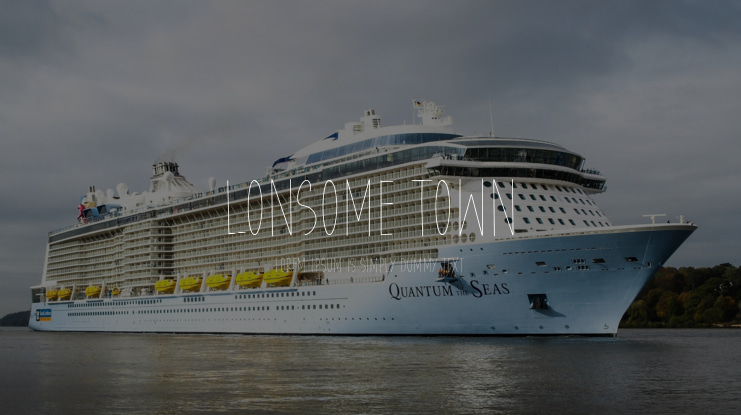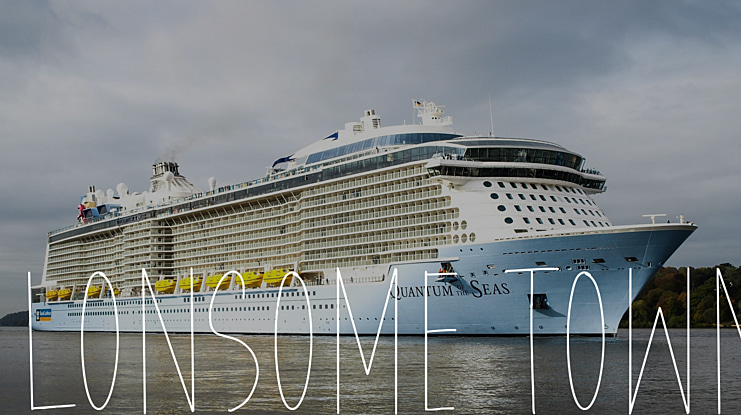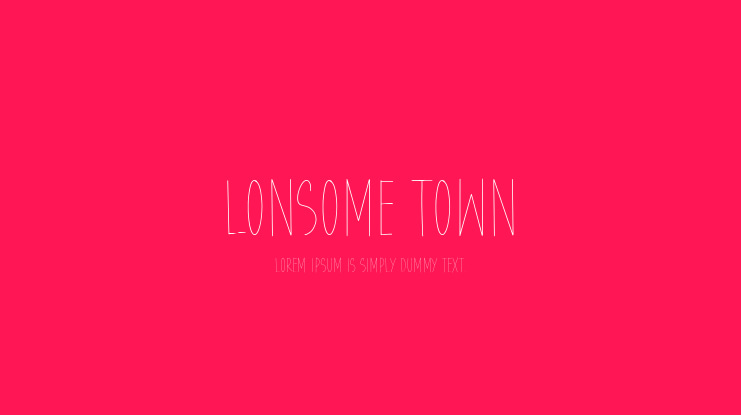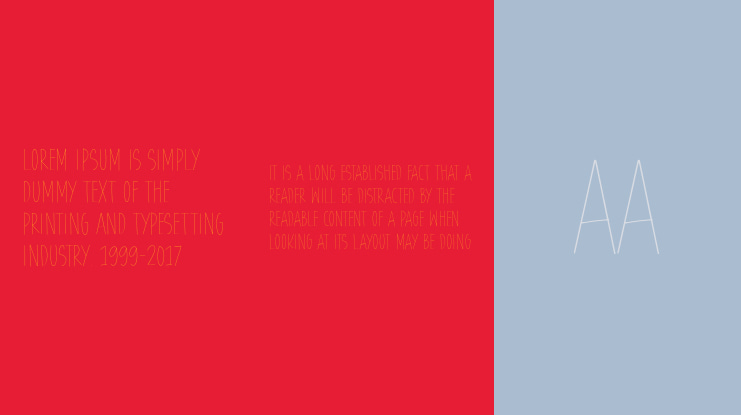
Lonsome Town Font
Lonesome Town is a Condensed Handwritten Font.
This font is very suitable for writing quotes and notes. Apart from that, it can be used for logos, book covers, magazines, t-shirts, and others.
This font only has uppercase letters
- also multilingual support